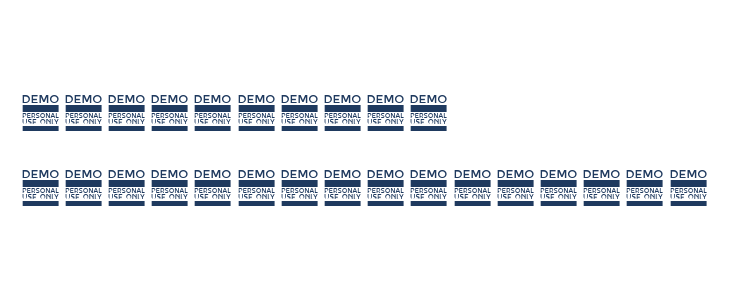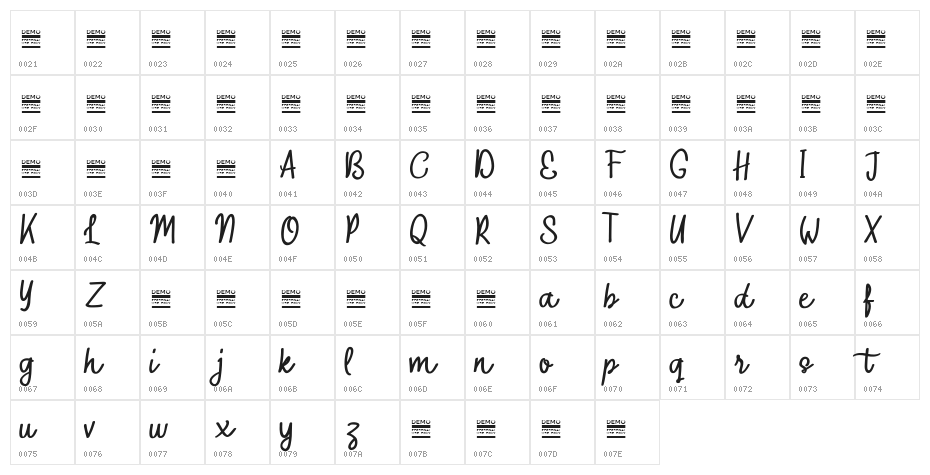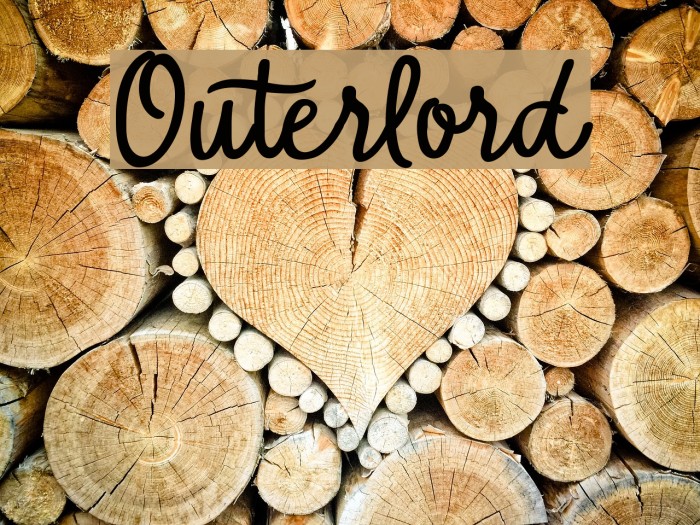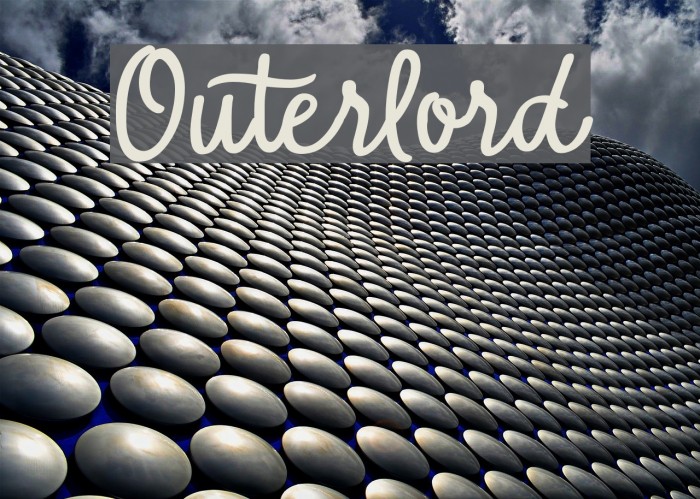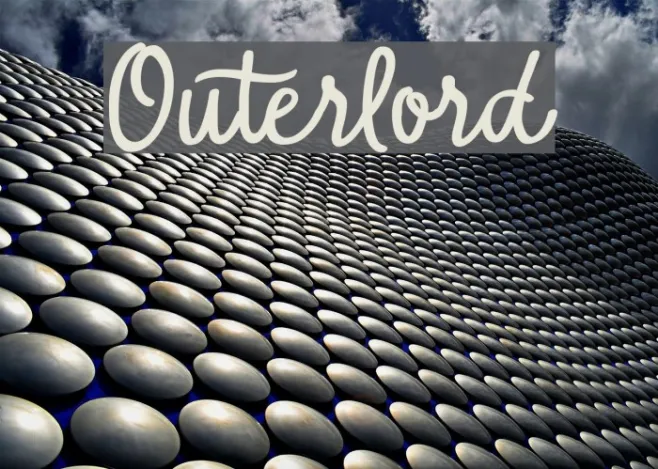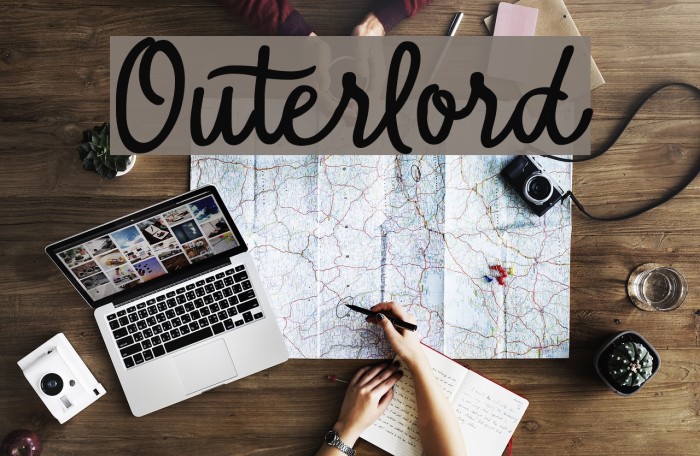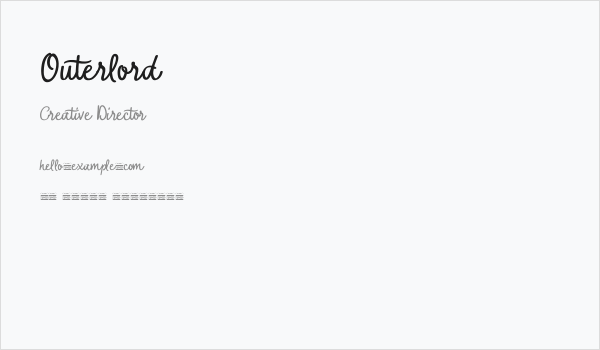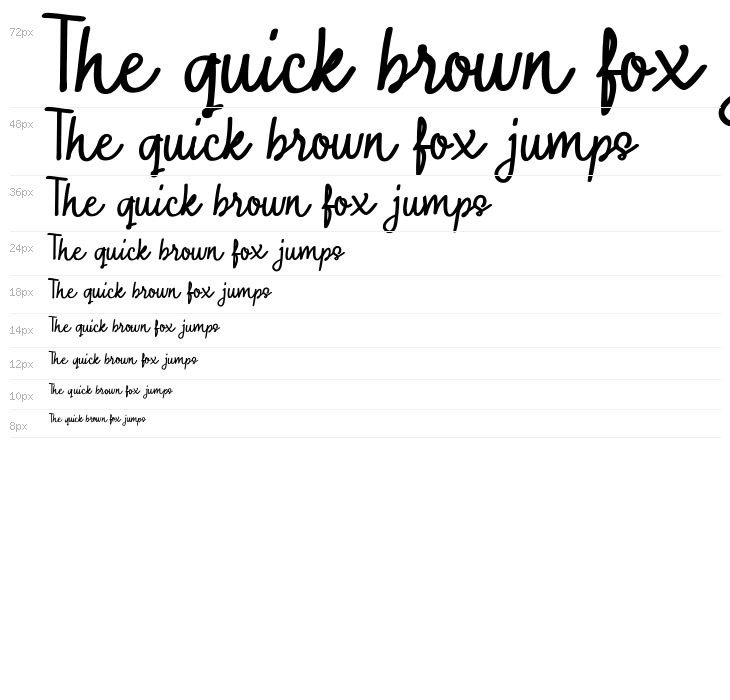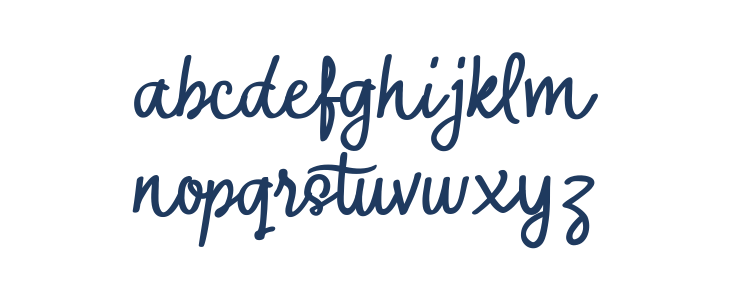
Outerlord Font
Outerlord Description
This font features a playful and energetic script style with a handwritten appearance. The letters are bold and slightly slanted, giving a dynamic and lively feel. The uppercase characters are tall and expressive, while the lowercase letters maintain a consistent flow with rounded edges. The numbers and special characters are designed to match the overall style, ensuring a cohesive look. The font's unique character is suitable for projects that require a personal touch or a casual, friendly vibe.
| Overall Style | Playful and Energetic |
| Use Case | Logos, Headlines, Social Media Graphics |
| Proposed Projects | Ideal for greeting cards, invitations, branding projects, and social media graphics where a personal and lively touch is desired. |